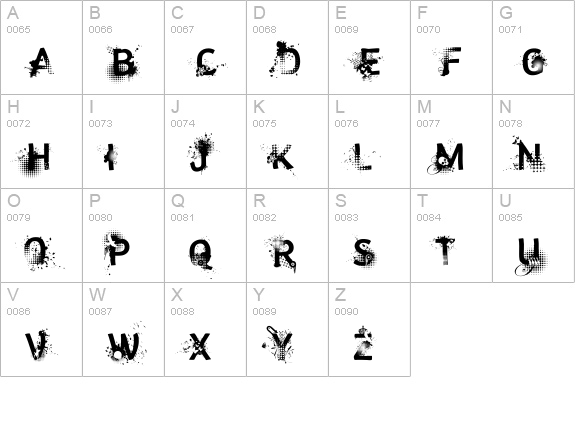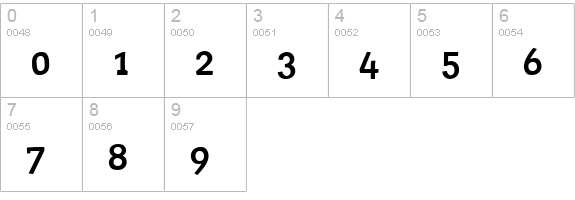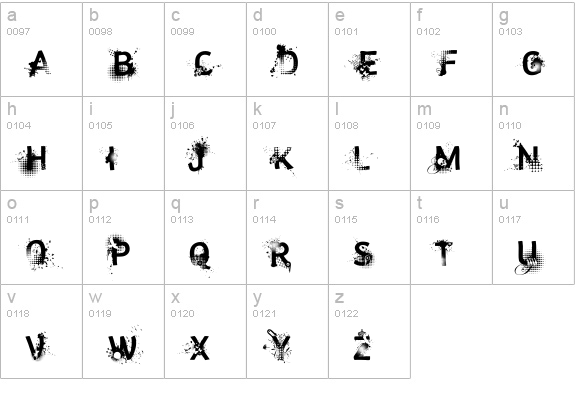
trashco Font Details
Introducing Trashco Font - a bold and edgy typeface that exudes a unique and contemporary aesthetic. With its rugged lines and rough edges, Trashco Font is perfect for projects that require a gritty and urban feel. This versatile font can be used for a wide range of design purposes, from posters and flyers to logos and branding. What sets Trashco Font apart is its sense of raw energy and rebellious spirit, making it a standout choice for anyone looking to make a bold statement. The font's distinctive style is sure to capture attention and leave a lasting impression on viewers. Best of all, Trashco Font is completely free to download at FontsMarket.com. So go ahead and unleash your creativity with this dynamic and eye-catching typeface. Whether you're working on a personal project or a client commission, Trashco Font is the perfect choice for adding a touch of urban flair to your designs.